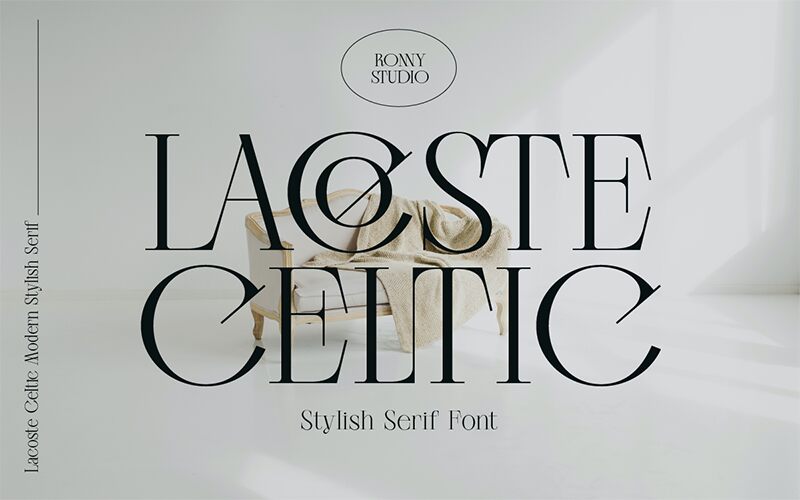
Lacoste Celtic
Lacoste Celtic, crafted by Ronny Studio, is a stylish serif font with a semi-light weight. This elegant typeface adds a touch of sophistication to any project.
Its graceful curves and intricate details make it ideal for high-end fashion magazines, luxurious branding materials, and sophisticated wedding invitations. With its unique combination of classic charm and modern flair, Lacoste Celtic is also suitable for designing elegant restaurant menus or creating eye-catching book covers that demand attention.
Let this font elevate your designs to the next level with its timeless elegance and refined aesthetics.